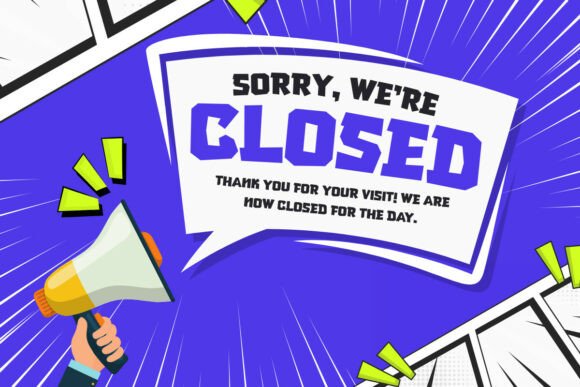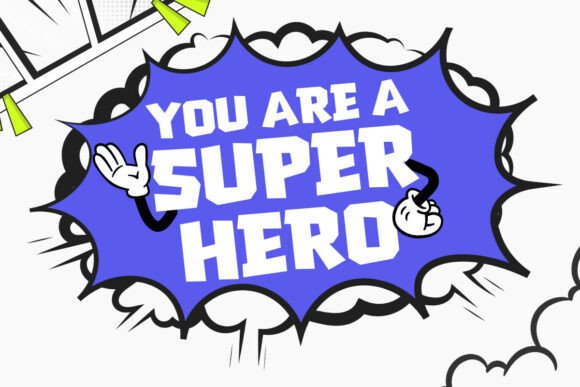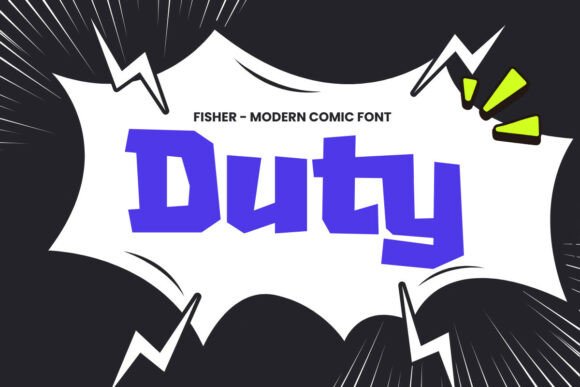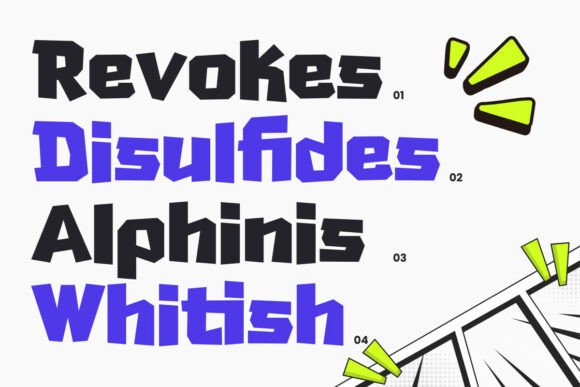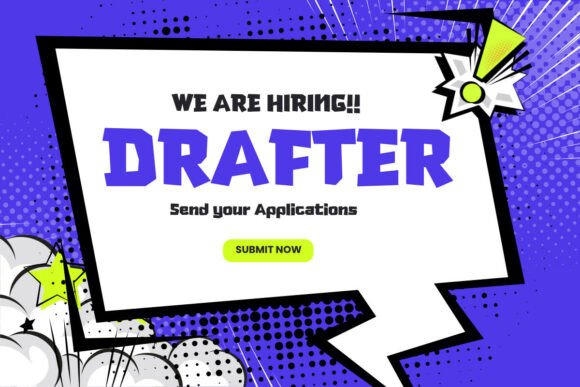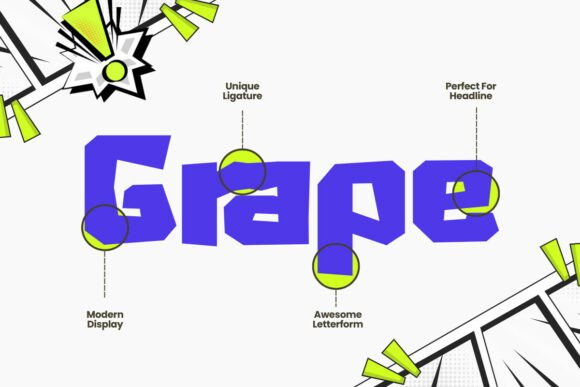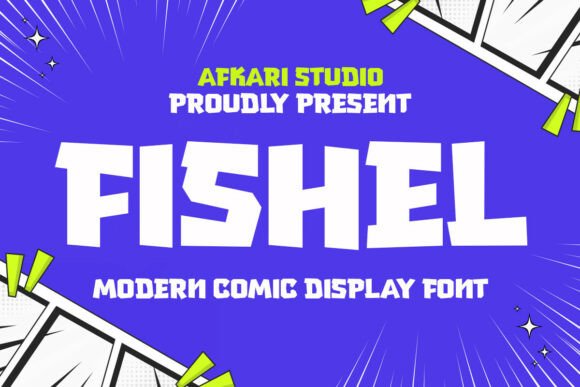
Introducing Fishel Font: The Ultimate Modern Comic-Style Font for Creative Designs
In the world of typography, fonts play a crucial role in conveying the tone and personality of a design. For designers and crafters looking for a font that embodies energy, fun, and playfulness without appearing childish, Fishel Font is an excellent choice. This modern comic-style font is specifically designed to bring a lively and engaging voice to various design projects, making it perfect for creatives who want to make a statement.
The Inspiration Behind Fishel Font
Fishel Font draws inspiration from hand-drawn comic lettering, which is evident in its bold strokes, lively curves, and dynamic letterforms. However, what sets Fishel apart is its refinement with clean, contemporary shapes. This blend of traditional comic-style elements with modern typography makes Fishel a versatile font suitable for a wide range of applications.
Key Features of Fishel Font
- Playful yet Readable: Fishel Font strikes the perfect balance between playfulness and readability. Its unique design ensures that the text remains clear and legible, even at smaller sizes, making it ideal for digital and print media.
- Bold Strokes and Lively Curves: The font’s bold strokes and lively curves give it a dynamic and energetic feel. These characteristics make Fishel perfect for designs that require a cheerful and friendly tone.
- Versatility: Fishel Font is incredibly versatile and can be used across various design projects, including kids’ branding, stickers, posters, social media content, comics, merchandise, and more.
- Modern and Contemporary: Despite being inspired by comic lettering, Fishel Font has a modern and contemporary look that will appeal to designers looking for something fresh and current.
Use Cases for Fishel Font
Fishel Font’s unique characteristics make it suitable for a variety of design projects. Here are some of the best use cases for this modern comic-style font:
- Kids Branding: Fishel Font is perfect for kids’ branding projects, such as logos, packaging, and marketing materials, due to its playful and engaging nature.
- Stickers and Merchandise: The font’s bold and lively design makes it ideal for stickers, t-shirts, and other merchandise that require a fun and eye-catching typography.
- Posters and Flyers: Fishel Font can add a dynamic touch to posters and flyers, making them stand out and grab the audience’s attention.
- Social Media Content: For social media content that needs to be engaging and lively, Fishel Font can help create posts that stand out in crowded feeds.
- Comics and Cartoons: Given its comic-style inspiration, Fishel Font is a natural fit for comics, cartoons, and other illustrated projects that require expressive typography.
Why Choose Fishel Font?
With so many fonts available, why should designers and crafters choose Fishel Font for their projects? Here are a few compelling reasons:
- Unique Personality: Fishel Font brings a unique personality to designs, setting them apart from more traditional typography.
- High Readability: Despite its playful nature, Fishel Font maintains high readability, ensuring that the message is conveyed clearly.
- Versatility: Its versatility means that Fishel Font can be used across a wide range of projects, making it a valuable addition to any designer’s font library.
- Modern Appeal: Fishel Font’s modern and contemporary design ensures that it will fit well with current design trends.
| Author | afkaristudio |
Fishel Font is a modern comic-style font that brings energy, personality, and fun into designs. Its unique blend of hand-drawn comic lettering and clean, contemporary shapes makes it perfect for designers and crafters looking for a playful yet readable font. With its bold strokes, lively curves, and dynamic letterforms, Fishel Font is ideal for a variety of projects, from kids’ branding and stickers to posters and social media content. By choosing Fishel Font, designers can add a cheerful and friendly voice to their work, making every message feel animated and engaging.
Whether you’re a professional designer or a crafter looking for a font that can add a personal touch to your projects, Fishel Font is an excellent choice. Its unique personality, high readability, versatility, and modern appeal make it a valuable addition to any design library. So, why settle for ordinary typography when you can make your designs stand out with Fishel Font?